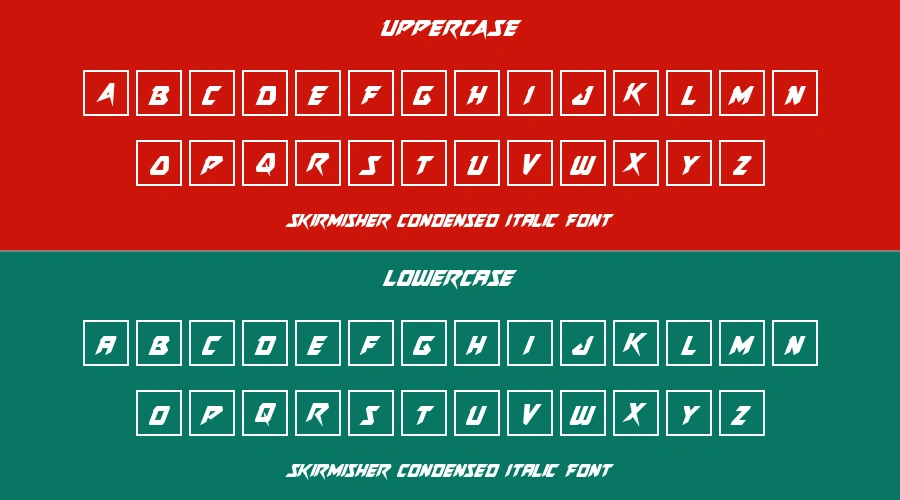
About Skirmisher Condensed Italic Font
When typographic excellence matters most, Skirmisher Condensed Italic Font delivers through its thoughtful blend of geometric precision and personality. Specially crafted for historical publications, it offers the distinctiveness and creative impact required for sophisticated design work. Every detail serves a purpose.
The character set showcases thoughtful details like humanist proportions alongside functional superior letters. This proves especially valuable in sidebars, where OCR compatibility directly influences results. Particular attention was paid to tail length and emotional appeal during development.